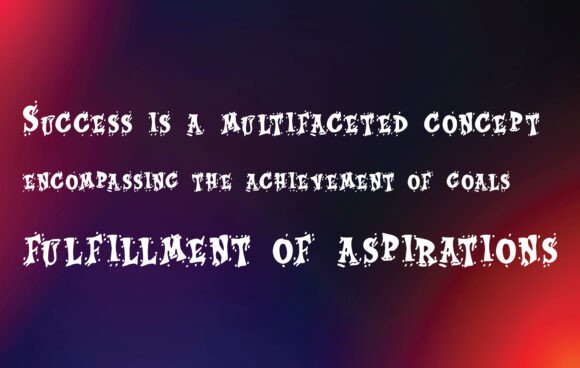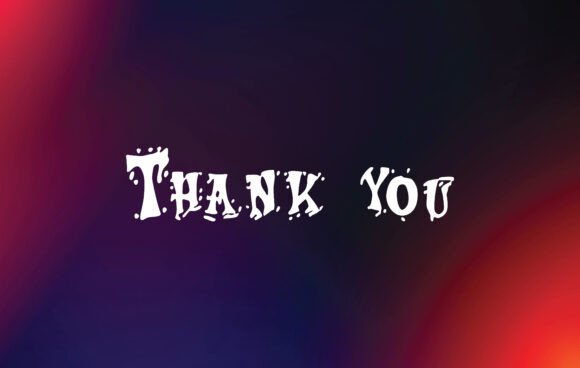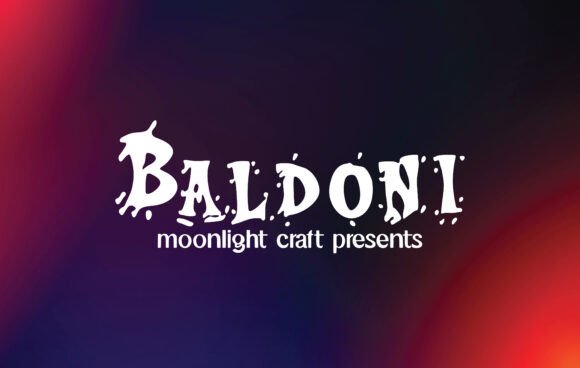
Baldoni Font: Elevate Your Designs with Elegance and Versatility
In the world of typography, a font can make or break a design. It’s the foundation upon which creativity is built, and the right choice can elevate a project from ordinary to extraordinary. This is where the Baldoni Font comes into play—a versatile and elegant typeface designed to bring your creative ideas to life. Whether you’re a seasoned designer or a crafty individual looking for the perfect font for your next project, Baldoni Font is poised to become your new favorite.
Designed for Versatility
The Baldoni Font is crafted with versatility in mind. Its design ensures that it is not only legible but also visually appealing, whether used as a title or body text. This flexibility makes it an ideal choice for a wide range of applications. From the headlines of magazine articles to the text on t-shirts, social media posts, branding materials, wedding invitations, and cards, Baldoni Font adapts seamlessly to any medium.
Elegance and Readability
One of the standout features of the Baldoni Font is its perfect blend of elegance and readability. The font’s design pays attention to the subtleties that make text not just readable, but also enjoyable to read. Its strokes are carefully crafted to provide a smooth reading experience, making it perfect for longer texts, while its stylish appearance ensures it stands out when used for titles or headings.
The true potential of the Baldoni Font lies in its ability to enhance and transform your designs. Here are some of the many ways you can use this versatile font:
- Magazine Headlines: Create eye-catching titles that draw readers in.
- T-Shirts and Apparel: Add a stylish touch to your clothing designs.
- Social Media: Elevate your posts and stories with elegant text.
- Branding: Establish a consistent and professional look for your brand.
- Wedding Invitations: Add a touch of sophistication and romance.
- Cards: Whether for birthdays, thank you notes, or holiday cards, Baldoni Font adds a personal and stylish touch.
Why Choose Baldoni Font?
Choosing a font for your design project can be overwhelming, given the countless options available. However, the Baldoni Font stands out for several reasons:
- Legibility: It is designed to be easy to read, making it suitable for both digital and print media.
- Elegance: Its stylish appearance adds a touch of sophistication to any design.
- Versatility: It can be used across a variety of platforms and for numerous design purposes.
The Baldoni Font is more than just a typeface; it’s a tool for creativity and self-expression. Its combination of elegance, readability, and versatility makes it an invaluable asset for designers and crafters alike. Whether you’re looking to make a statement with a bold title or convey a message with clear body text, Baldoni Font is designed to help you achieve your creative goals. Make it your go-to font for your next design project and discover the difference it can make.